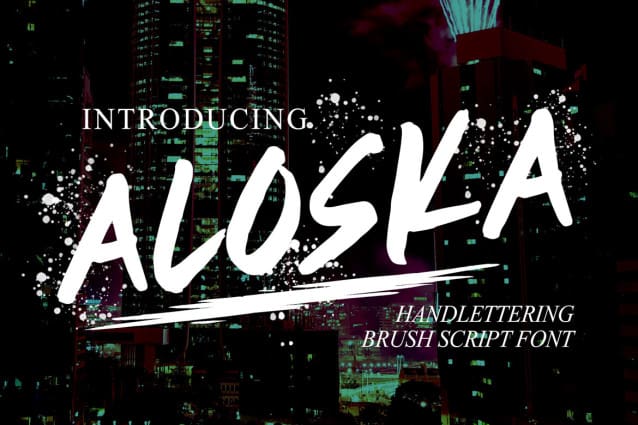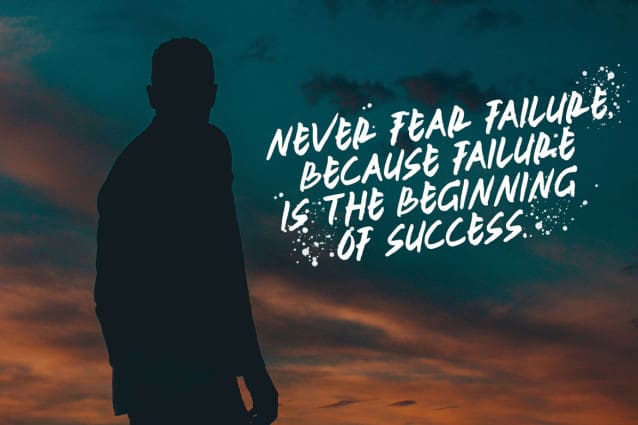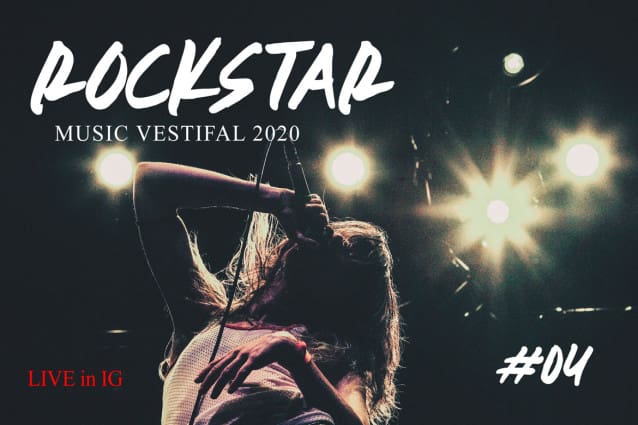
Aloska HandBrush Font
Aloska HandBrush Font is a playful and cute display font. Whether you are using it for cartoon-related designs, children’s games, quotes, titles, brand names, book covers, posters, or just any creation that requires a touch of beauty, this font is a great choice.
| Designer Name: | koplexsstudio |